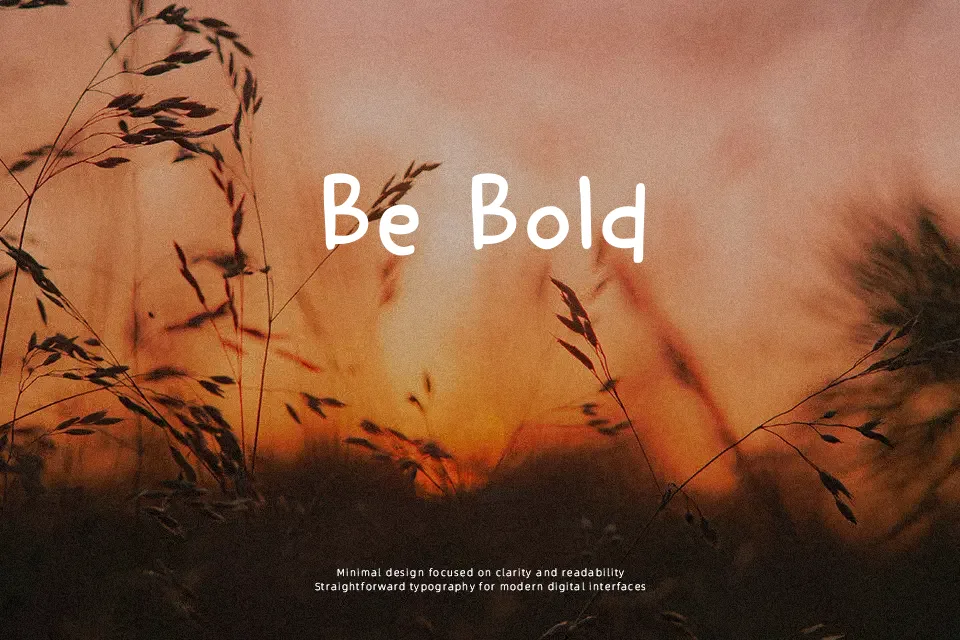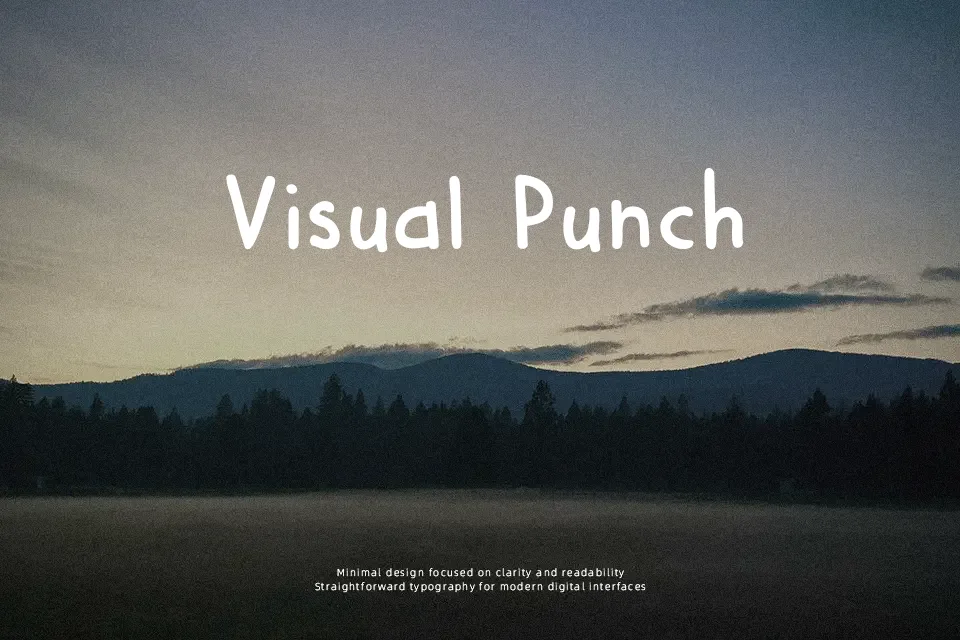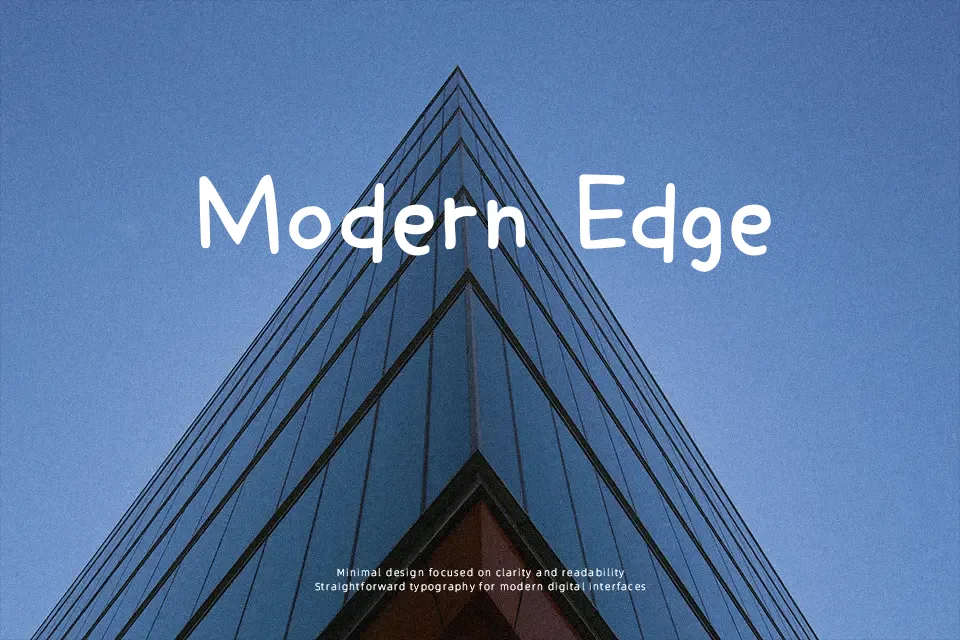
DK Harimau Dua Font
Designed by Hanoded
DK Harimau Dua has thick, rounded strokes, loose spacing, and a slightly uneven hand-drawn structure that gives it an easygoing comic tone. It feels loud without being harsh, so it reads well in short headlines where personality matters more than polish. I would use it for children’s event posters, game title screens, playful packaging, or social graphics that need a casual voice. The decorative energy is the main appeal, especially at larger sizes. It is much less convincing in editorial settings, business materials, or anything that depends on clean paragraph reading, and the quirky symbol treatment makes it better for display work than everyday text.
Perfect for gaming, headline, and kids, with a bold and comic style.